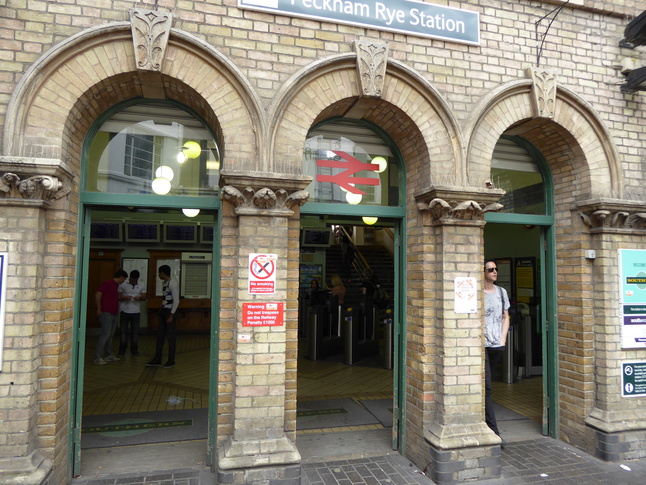
This typeface is a display-focused design inspired by the architecture and infrastructure of Peckham Rye Station. It draws heavily on structural and industrial elements found at the site, such as brickwork, rail tracks and grid systems. The alphabet is built using consistent proportions and widths to create a cohesive system, while variations in internal structure add character and visual interest. The influences from the station are reflected in the bold letterforms, strong vertical strokes, and repeated internal details that give the typeface a constructed, architectural feel.